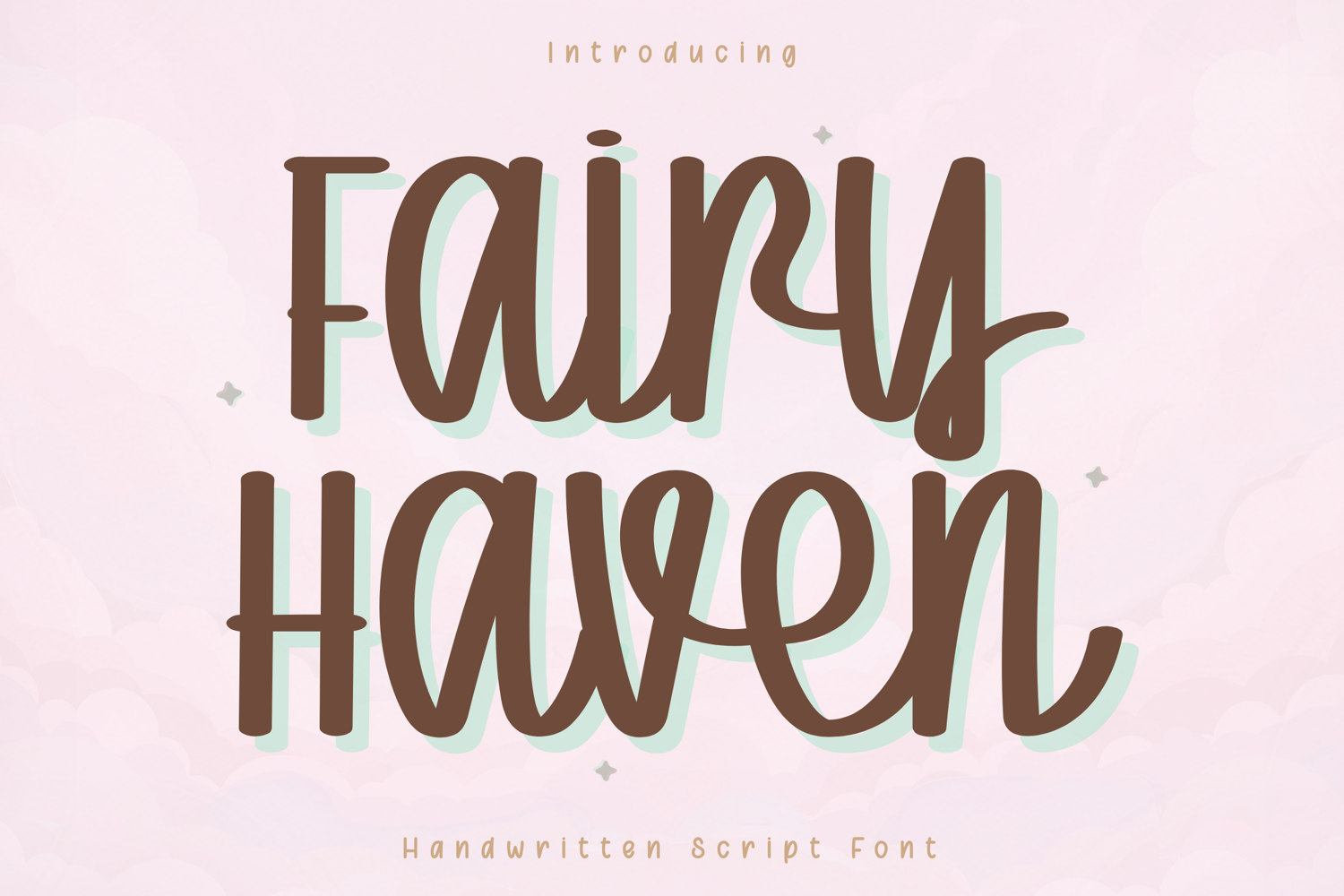
Fairy Haven - Handwritten Script Font
Fairy Haven – Handwritten Script Font
Fairy Haven is a clean and charming handwritten script font designed to bring a soft and welcoming feel to your creative projects. With its smooth curves and slightly structured letterforms, this font offers a natural handwritten style while maintaining excellent clarity and readability.
Carefully crafted for versatility, Fairy Haven performs beautifully across a wide range of applications—from Cricut cutting projects to branding, digital planners, and social media design. Its smooth and consistent strokes ensure reliable results for both writing and cutting, making it ideal for everyday creative use.
Fairy Haven is designed with smooth, clean strokes and balanced spacing, making it easy to use for both beginners and professional designers.